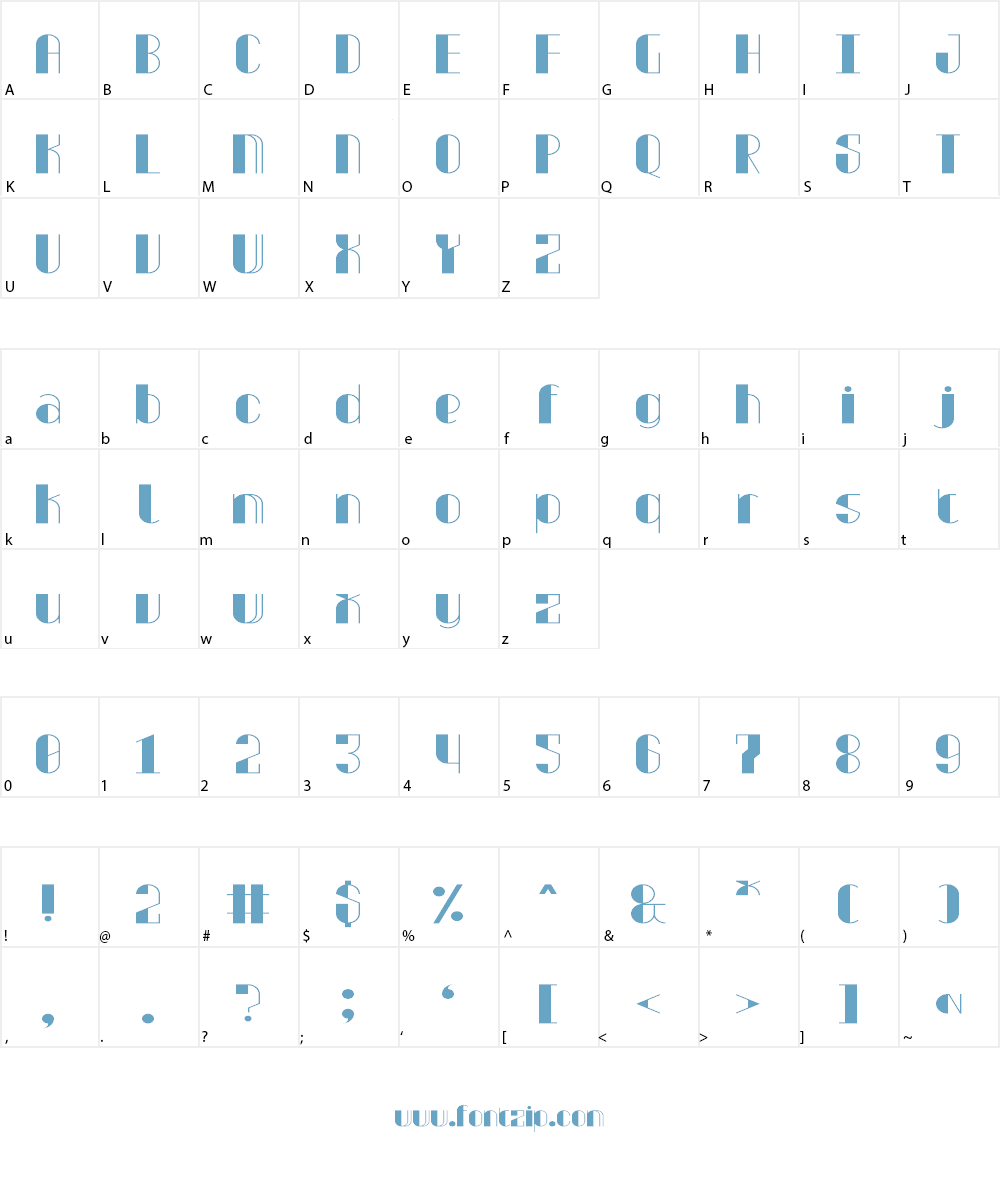
An informal Art Deco design I made for a friend. Supports Danish, Dutch, English, Finnish, French, German, Hungarian, Icelandic, Italian, Norwegian, Polish, Portuguese, Spanish, and Swedish!